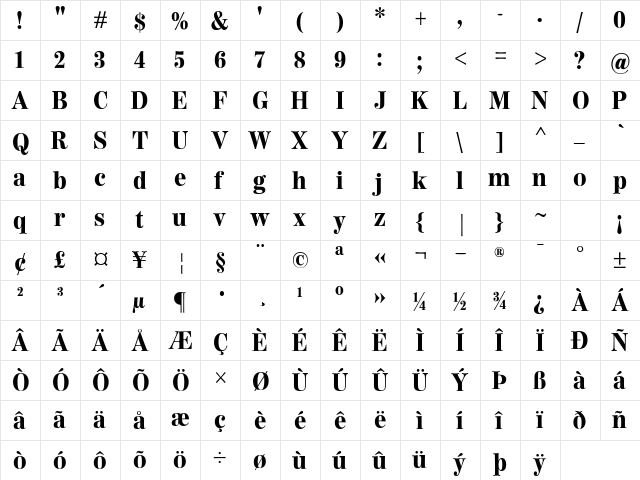
WorldwideHeadlineBlack Regular
Design Context for WorldwideHeadlineBlack Typeface
WorldwideHeadlineBlack offers clean, dependable letterforms without strong stylistic allegiance, making it a practical choice for designers who need flexibility.
Pro Tip: Use WorldwideHeadlineBlack in both headline and body roles to test its range before committing to a single application.